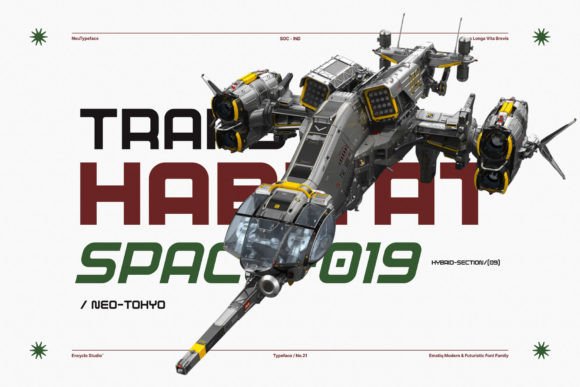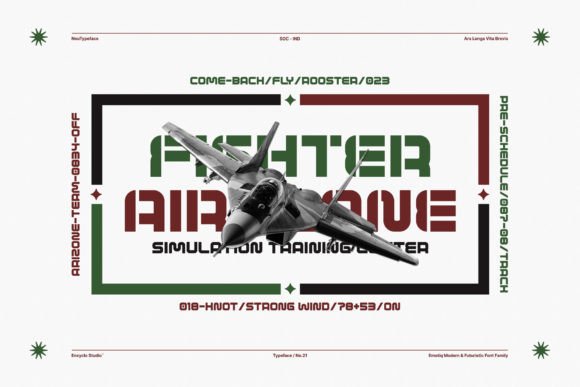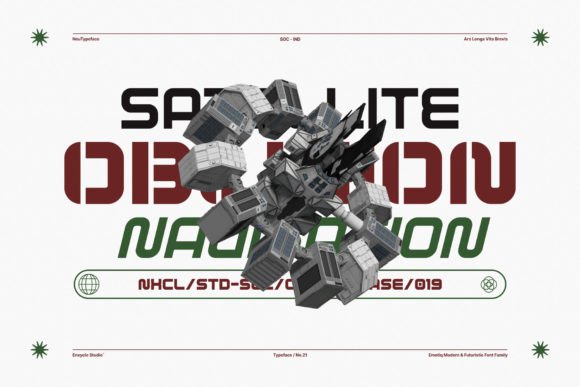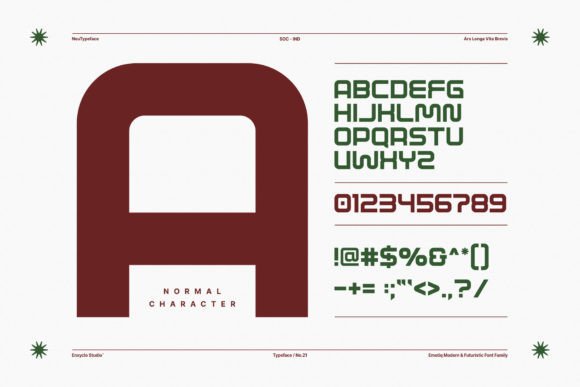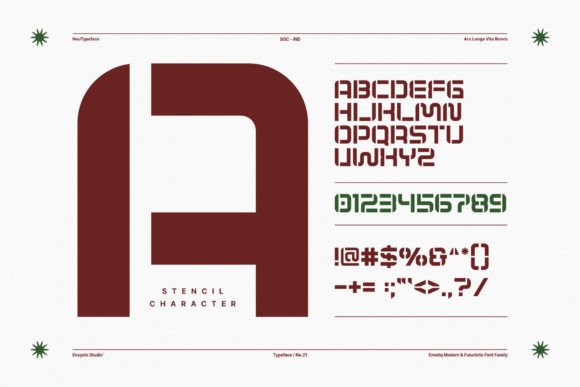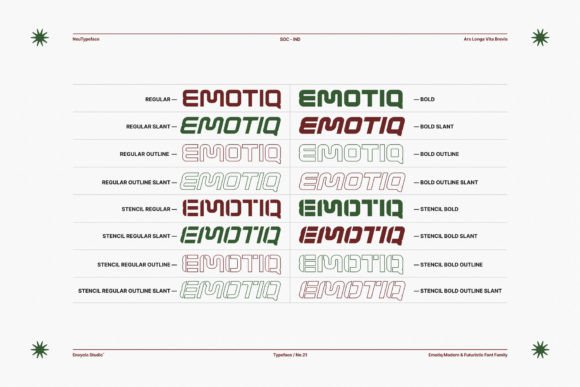
Introduction to Emotiq Font
Have you ever been working on a creative project, and suddenly, a spark of inspiration hits you, guiding you towards the perfect font to elevate your design? For many designers, this moment is a crucial part of the creative process. It’s the moment when everything falls into place, and the design starts to take shape.
| 📌 Product Name | Emotiq Font |
| 👤 Author | Enxyclo |
That’s exactly what the Emotiq Font does – it brings your designs to life with its modern and futuristic sans serif style. This high-quality font is a valuable design resource for any creative project, whether it’s a sci-fi themed poster, a futuristic website, or even a simple logo. With its clean lines and bold vibe, the Emotiq Font adds a touch of sophistication to any design, making it a must-have for designers looking to take their work to the next level.
Key Features of Emotiq Font
- Includes a comprehensive character set, including uppercase and lowercase letters, numbers, and punctuation marks, for versatility in design and creative projects.
Honest Review: Emotiq Font
As a designer, I’m always on the lookout for high-quality design resources to elevate my creative projects. The Emotiq Font caught my eye due to its unique, modern aesthetic. I was excited to dive in and see if it would meet my expectations.
Here’s what I liked:
- ✨ The Emotiq Font offers a wide range of styles and weights, making it a versatile design resource for any project.
- ⚠️ The font might be too bold or overpowering for more delicate designs.
- ⚠️ Some users may find the font’s unique style challenging to read or use in body text.
Overall, the Emotiq Font is a solid design resource for those who want to add a modern, edgy touch to their projects. While it may not be suitable for every design, it’s definitely worth considering for creative projects that require a bold statement.
Introduction to Emotiq Font
The Emotiq Font is a high-quality, versatile design resource perfect for any creative project. With a transparent background, it offers endless possibilities for customization and design flexibility.
Tips for Getting the Most Out of Emotiq Font
To get the most out of the Emotiq Font, experiment with different font sizes, colors, and combinations to create unique and eye-catching designs. You can also use the transparent background feature to create seamless designs that blend with your background.
Common Use Cases for Emotiq Font
The Emotiq Font is perfect for a wide range of creative projects, including social media graphics, blog posts, presentations, and more. Its versatility and high-quality design make it an ideal choice for any project that requires a professional touch.